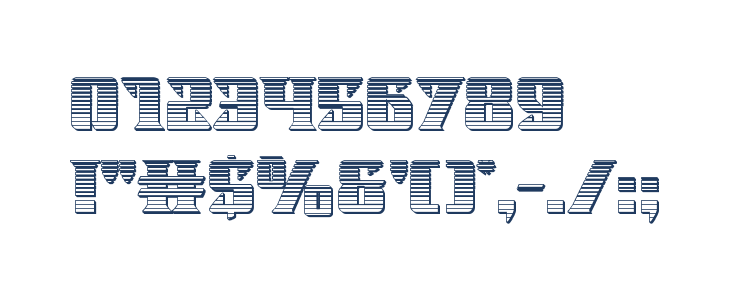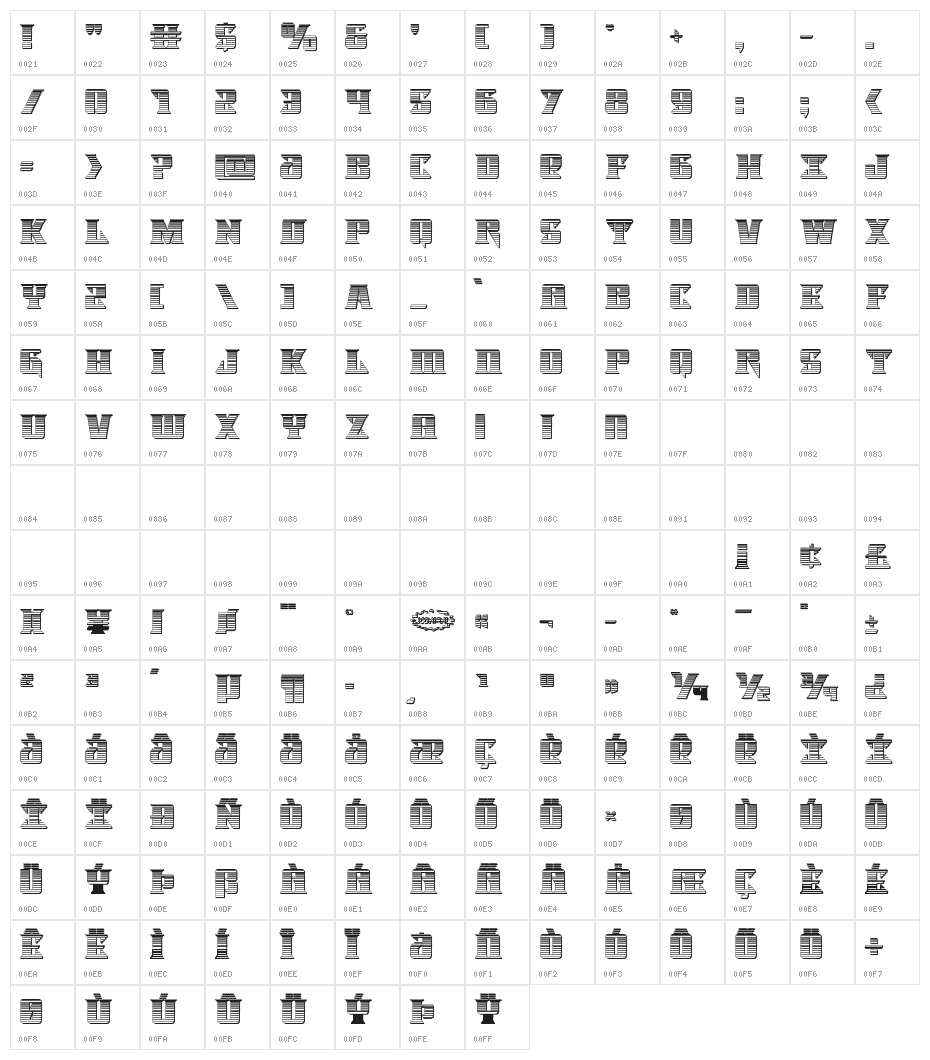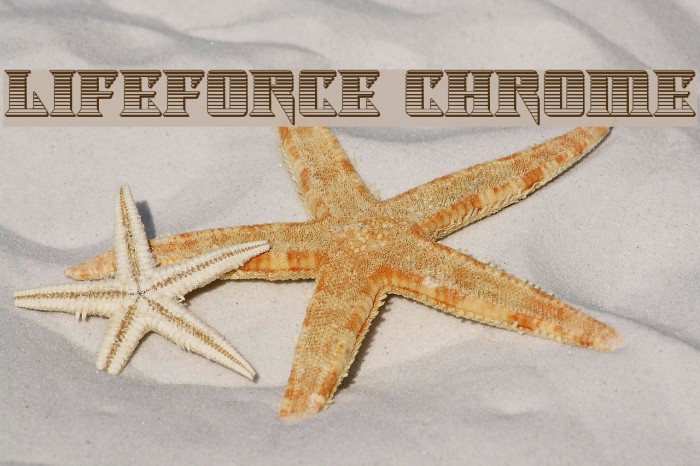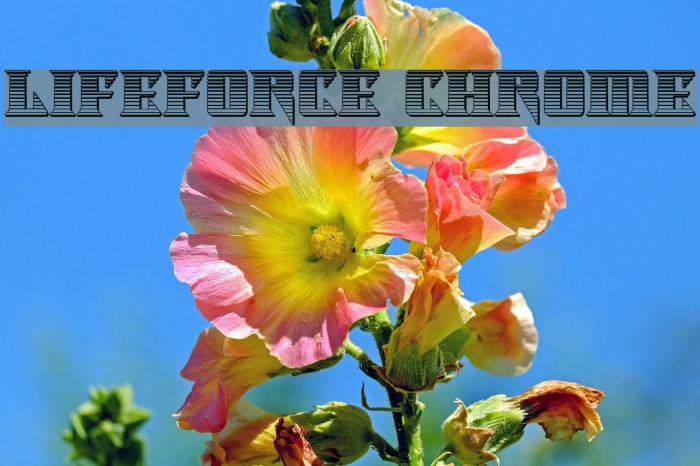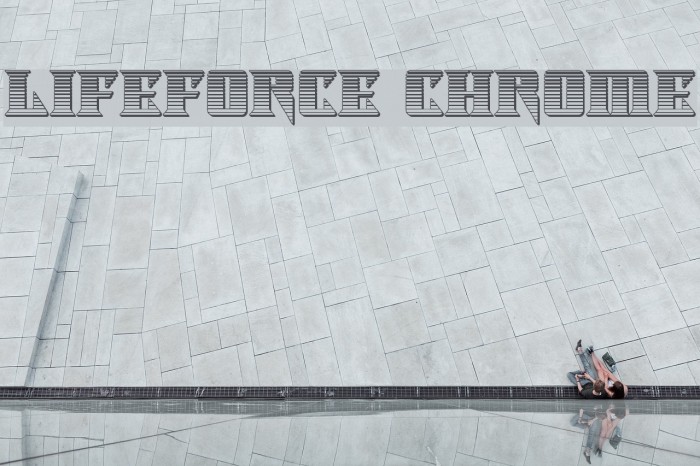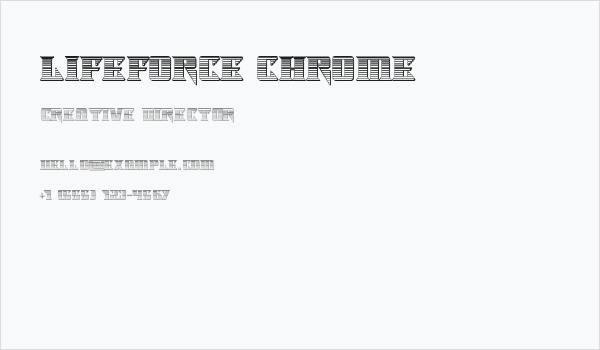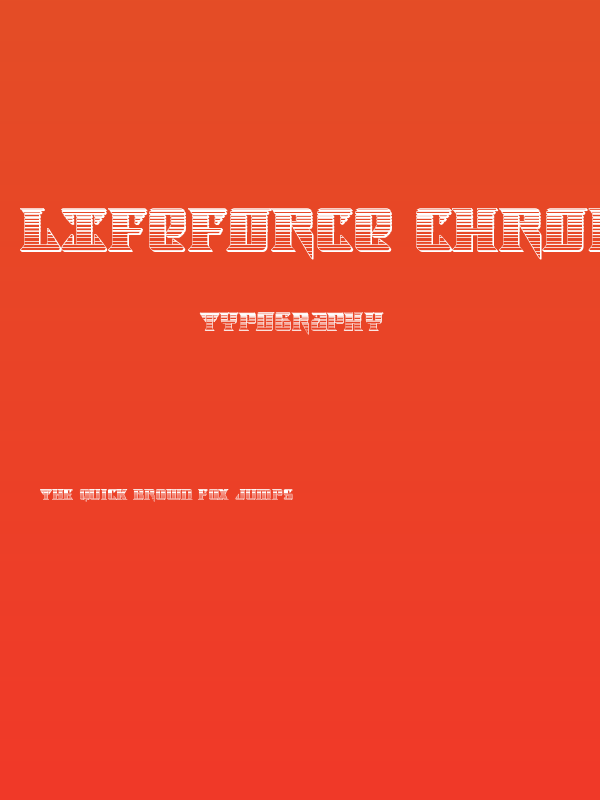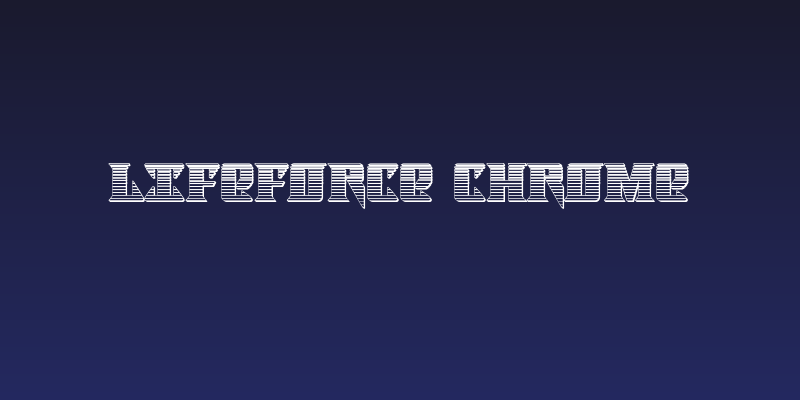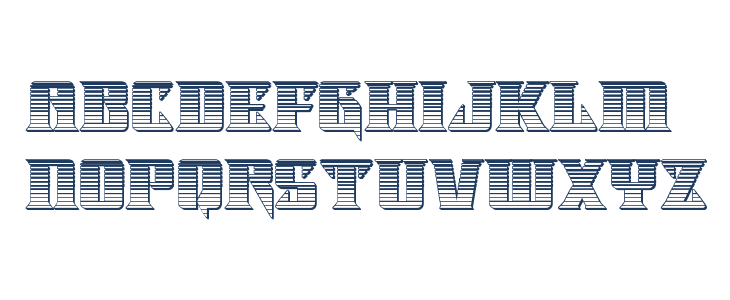
Lifeforce Chrome Font
Lifeforce Chrome Description
This font features a bold, decorative style with a unique striped pattern running through each character, giving it a dynamic and futuristic appearance. The uppercase and lowercase letters maintain a consistent design, with sharp angles and geometric shapes that create a sense of movement. The numbers and special characters are equally stylized, ensuring a cohesive look across all elements. The font's distinct lines and angles make it stand out, ideal for projects that require a strong visual impact.
| Overall Style | Futuristic, Decorative |
| Proposed Projects | Ideal for sci-fi themed designs, video game titles, posters, and branding that requires a modern and eye-catching look. |